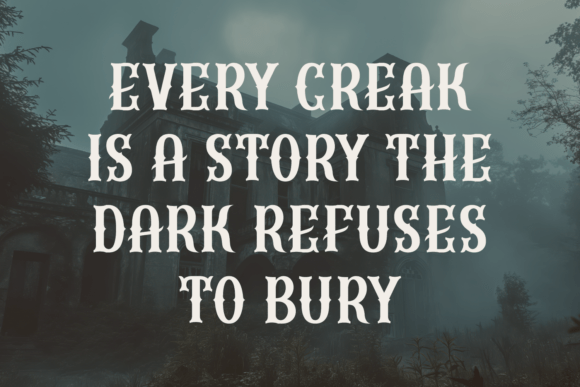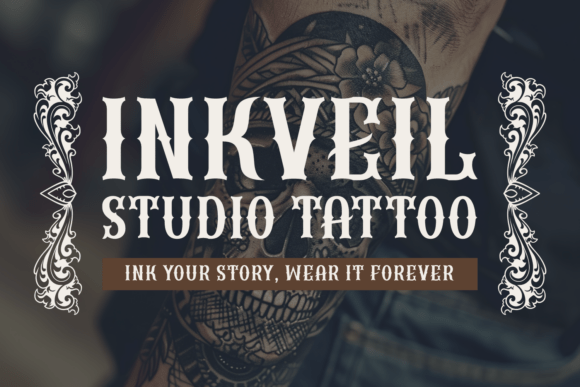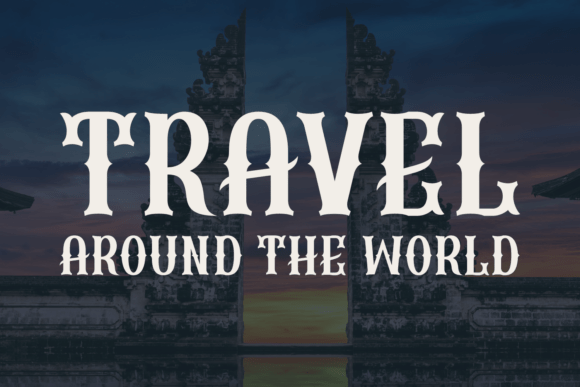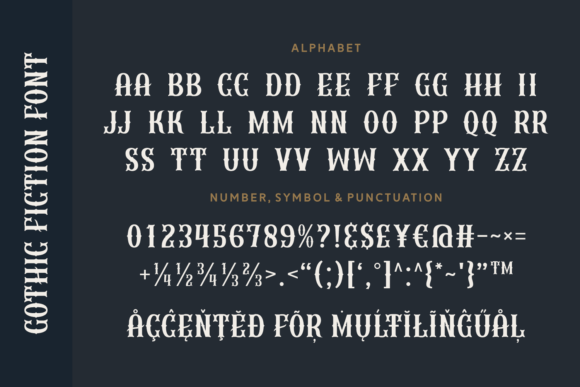
Unveiling the Mystery of Gothic Fiction Font
As a designer, have you ever found yourself scrolling through design resources, searching for the perfect font to give your creative project that extra oomph? You’re not alone. I still remember the moment I stumbled upon the Gothic Fiction Font, and my eyes widened in excitement. Its dramatic presence and vintage flair instantly captivated me, and I knew I had to learn more about this enchanting typeface.
The Gothic Fiction Font is a true gem for designers, offering a unique blend of elegance and sophistication that’s hard to find in other fonts. With its ornate strokes and high-quality design, this font is perfect for book covers, branding, posters, tattoos, and gothic-inspired designs. Whether you’re working on a free download or a paid project, this font is sure to add an air of mystery and intrigue to your work.
From its transparent background to its bold, eye-catching letters, the Gothic Fiction Font is a versatile design resource that’s sure to elevate your creative projects to the next level.
- High-quality, intricately designed font perfect for creative projects.
- Features a transparent background, allowing for seamless integration with any design.
- Unique characteristics include ornate details, gothic-inspired architecture, and a mysterious atmosphere.
- Perfect for designers, writers, and artists working on dark fantasy, horror, or supernatural-themed projects.
Honest Review: Gothic Fiction Font
As a designer, I’m always on the lookout for unique and high-quality design resources. Recently, I came across the Gothic Fiction Font, and I was excited to see if it lived up to its promise. After using it in a creative project, here’s my honest review.
- High-quality design: The Gothic Fiction Font is a beautifully crafted font with intricate details and a unique aesthetic.
- Transparent background: This font has a transparent background, making it perfect for use in creative projects where you need to layer it with other design elements.
- Limited font sizes: While the font is perfect for headlines and titles, it’s not ideal for large blocks of text.
- No variations: Unfortunately, there are no variations of the font available, which can limit its use in certain projects.
Overall, I was impressed with the Gothic Fiction Font’s unique design and high-quality construction. While it has some limitations, it’s a great resource for designers working on creative projects that require a touch of elegance and sophistication.
Gothic Fiction Font
To get the most out of the Gothic Fiction Font, experiment with different font sizes, colors, and styles. You can also use the font in combination with other design elements to create a unique and captivating visual effect.
Common Use Cases for Gothic Fiction Font
The Gothic Fiction Font is perfect for a variety of creative projects, including book covers, posters, and even digital art. Its high-quality design and elegant style make it a great choice for any project that requires a touch of mystery and sophistication.